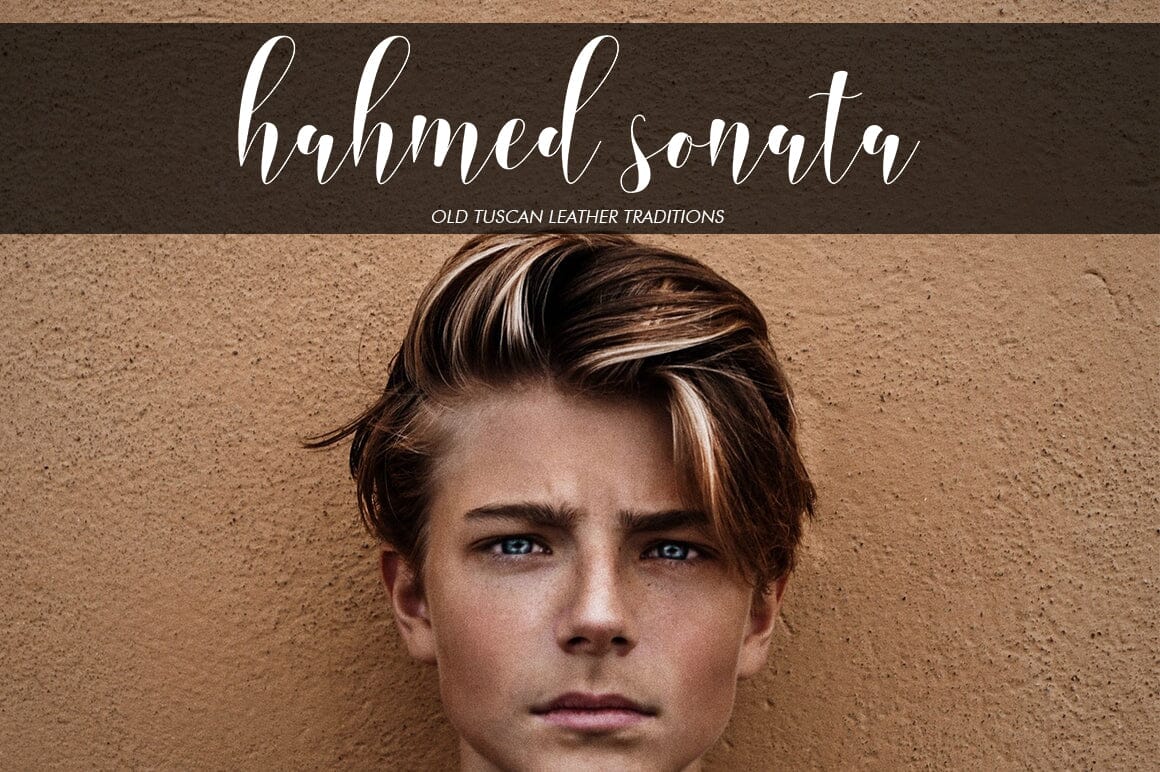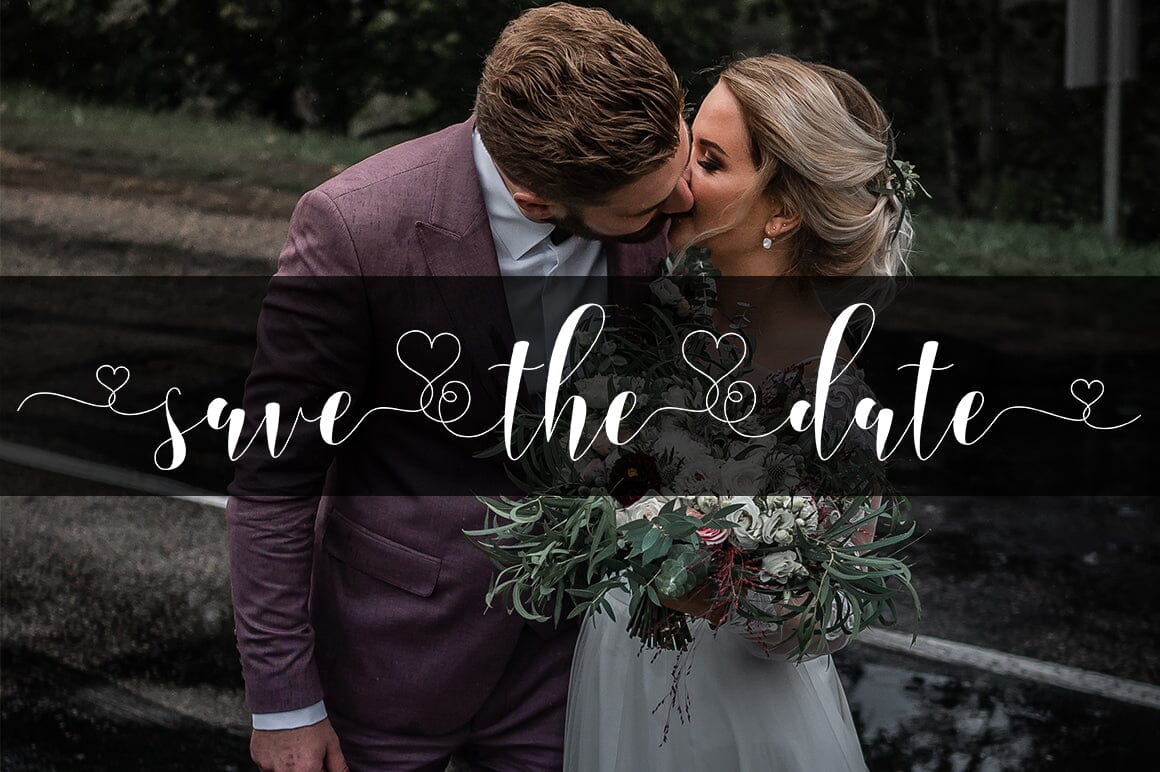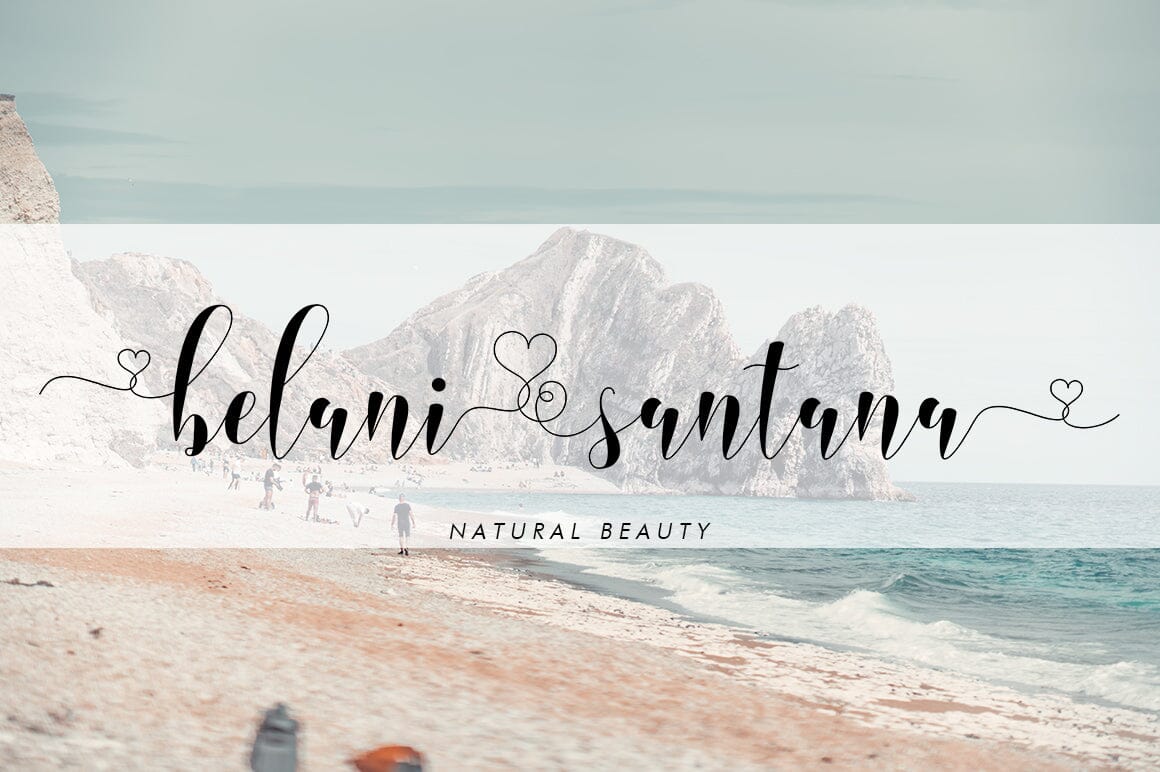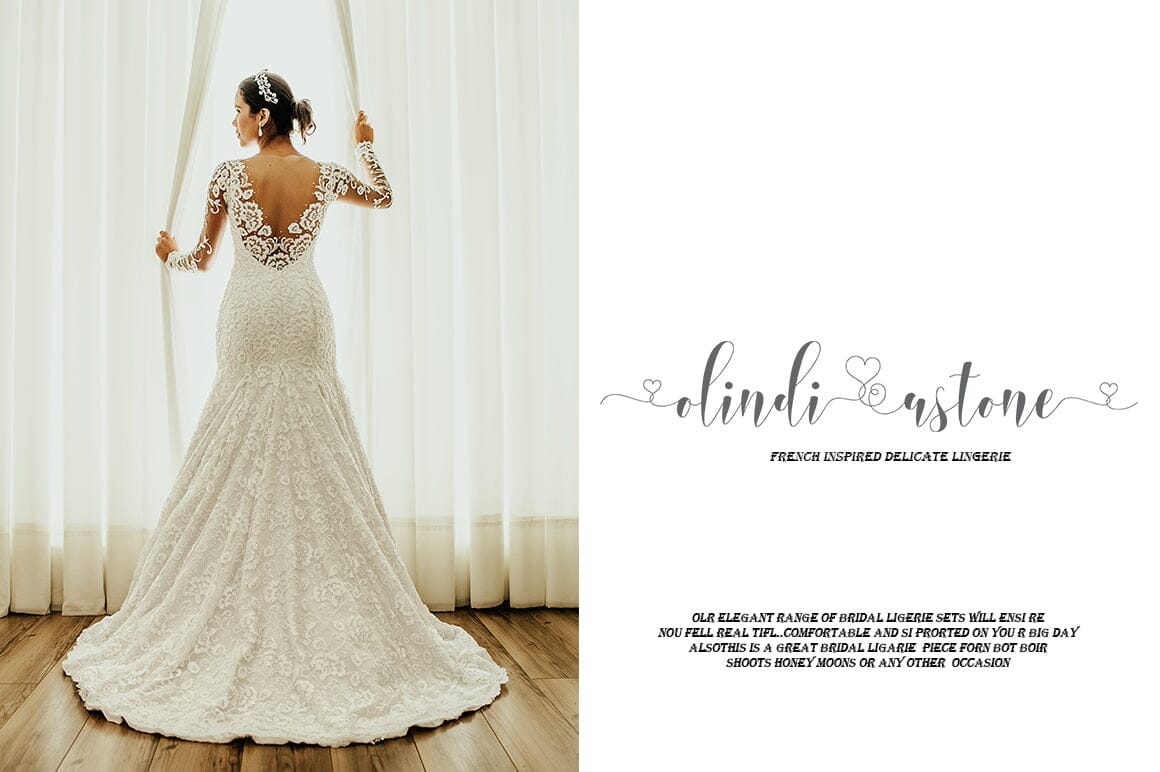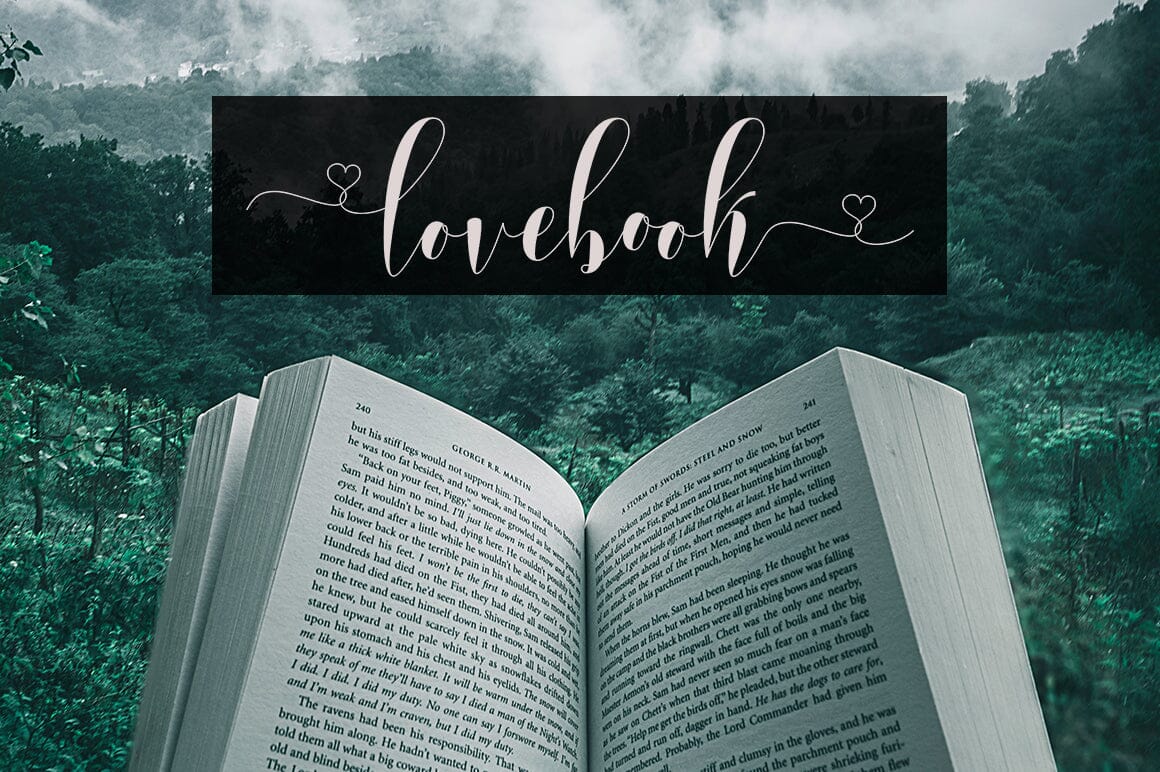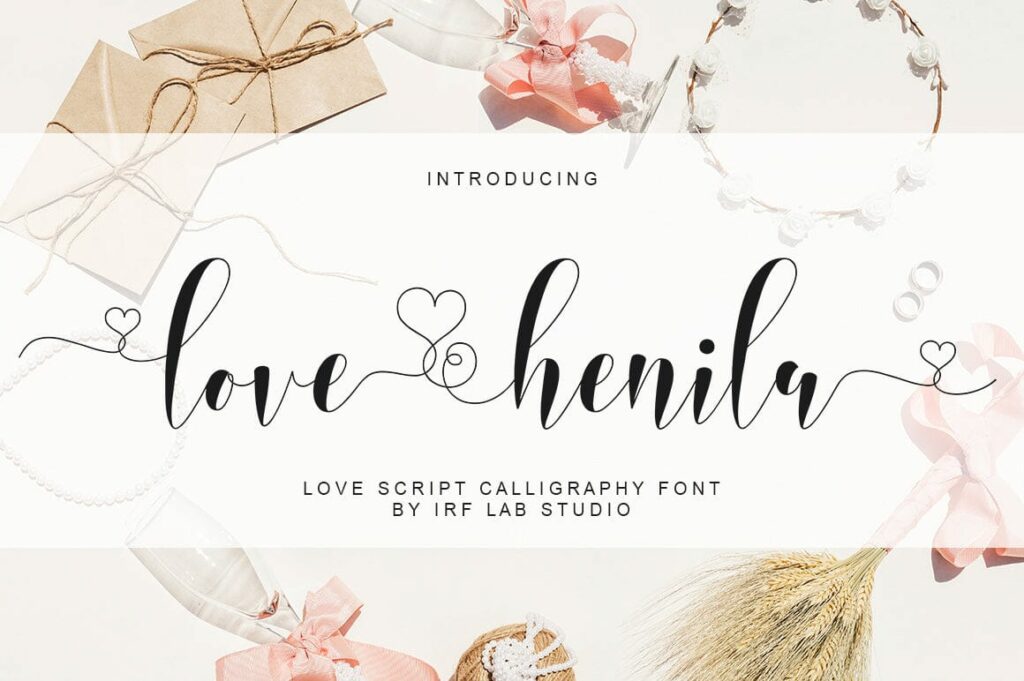
Love Henila
About Love Henila
Love Henila is a smooth, elegant and flowing handwritten font. It has a beautiful and balanced character and as a result, fits into a wide set of designs. Love Henila features varied baselines, smooth lines, beautiful glyphs, and stunning alternatives. Add to your most creative ideas and watch how they come to life!